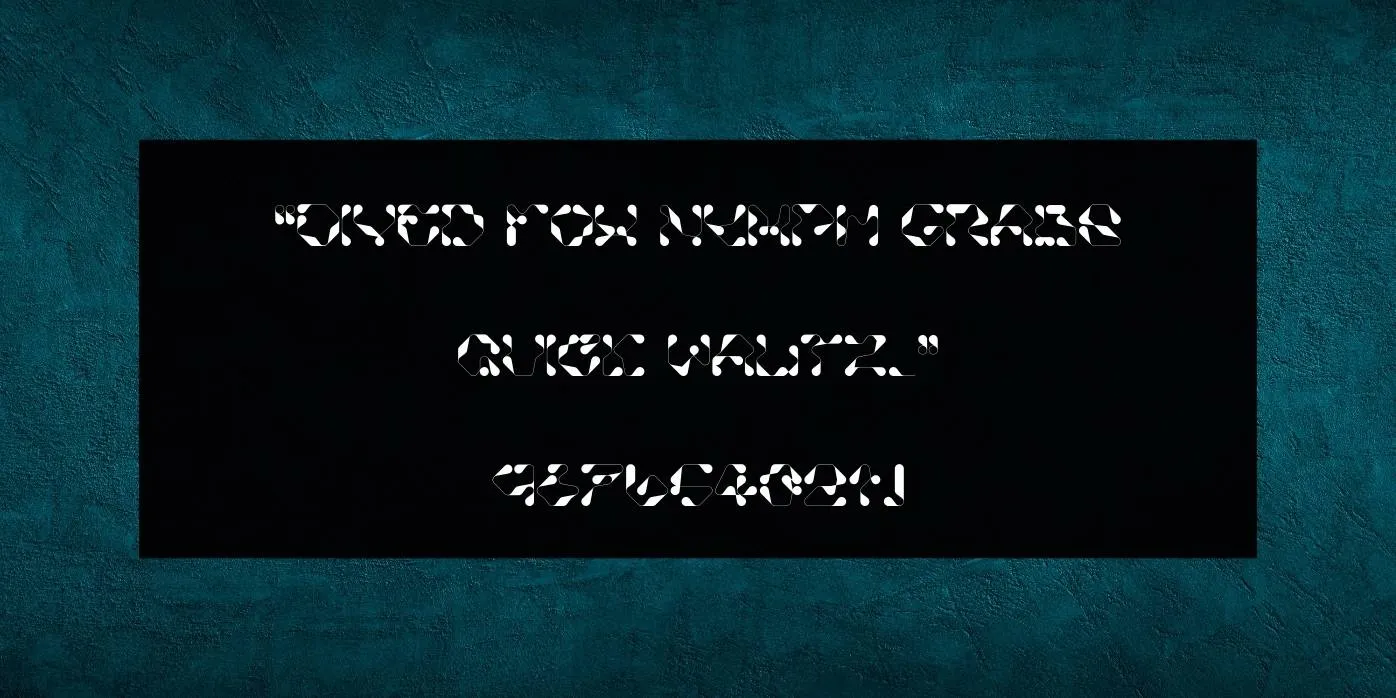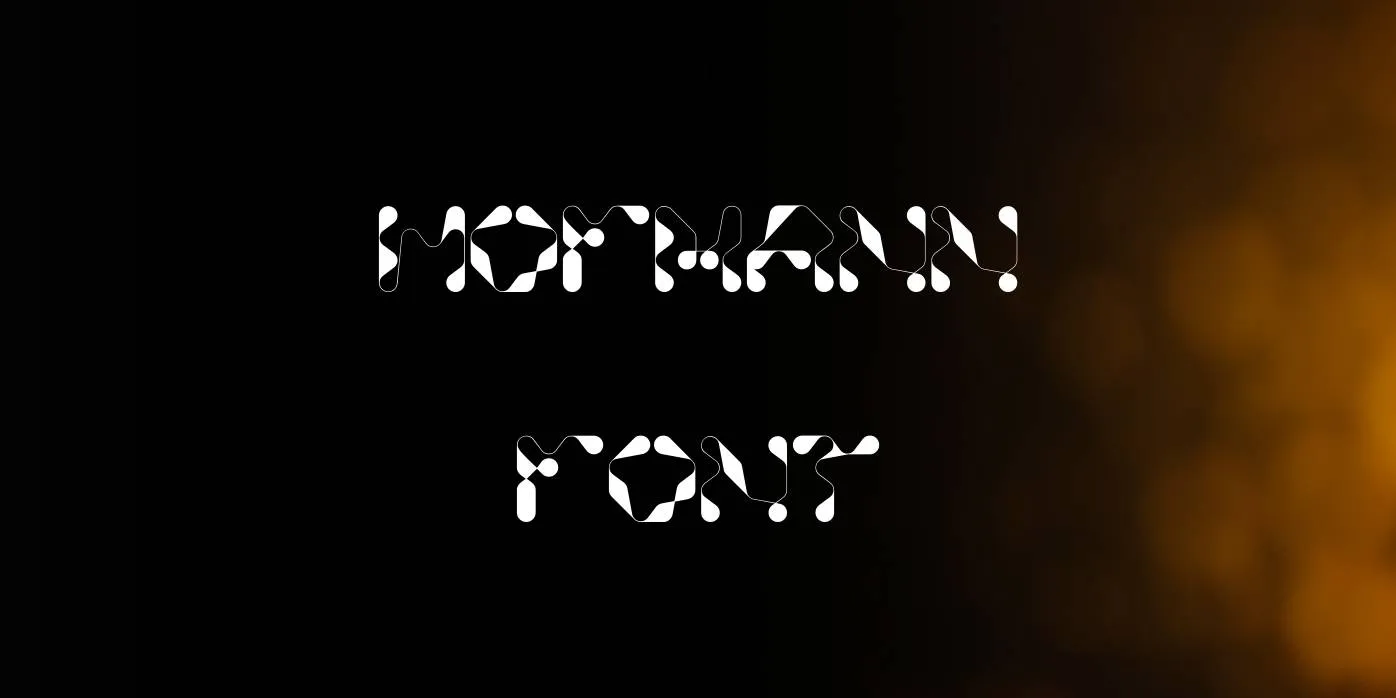
Hofmann Font
Hofmann font is a fancy typeface designed in 2019 by German-type foundry Hofmannsanz. The font is available in three weights—light, regular, and bold—and each weight includes a roman and an italic version. This font was designed as a versatile typeface that could be used for both body text and display purposes. The lightweight is well-suited for use in small sizes, while the bold weight can be used for headlines and other decorative purposes.
The typeface is named after German type designer Hermann Hoffmann, who was active in the early 20th century. You can mix the typeface with others and can be used as a pairing with hobo font a basic sans serif category font you can download free from our web portal.